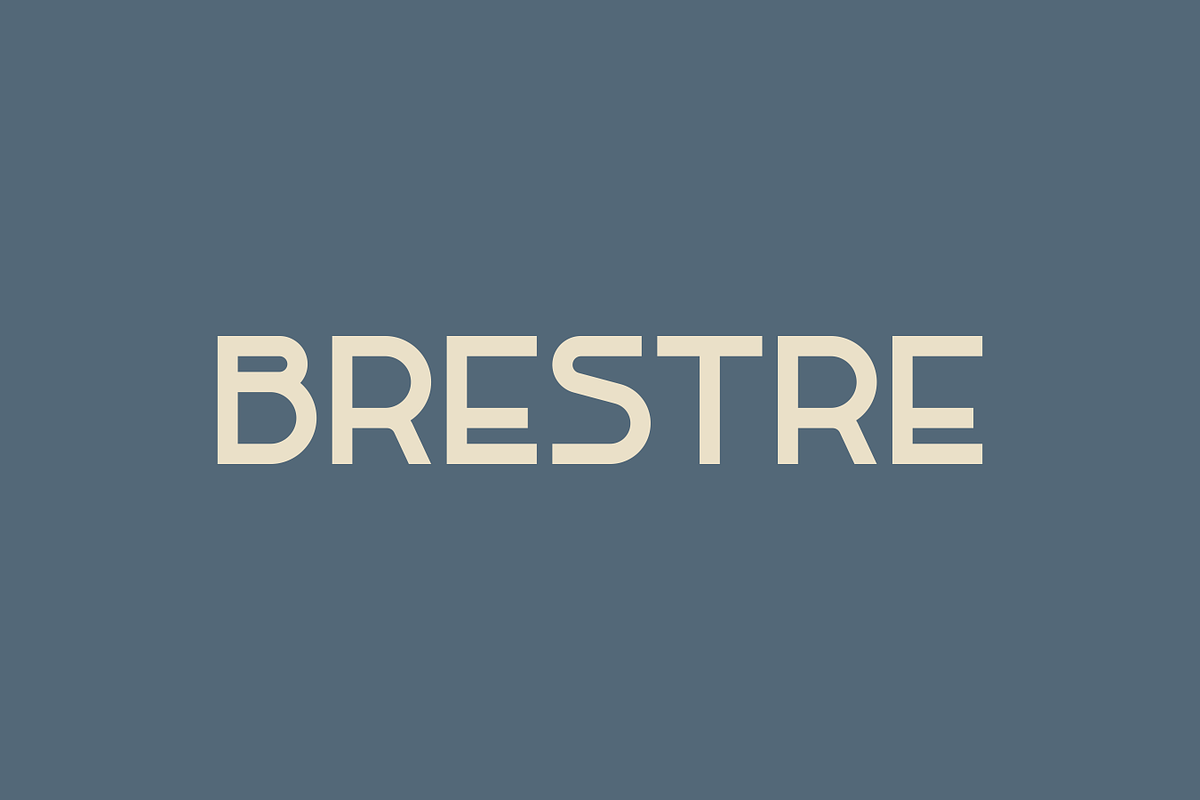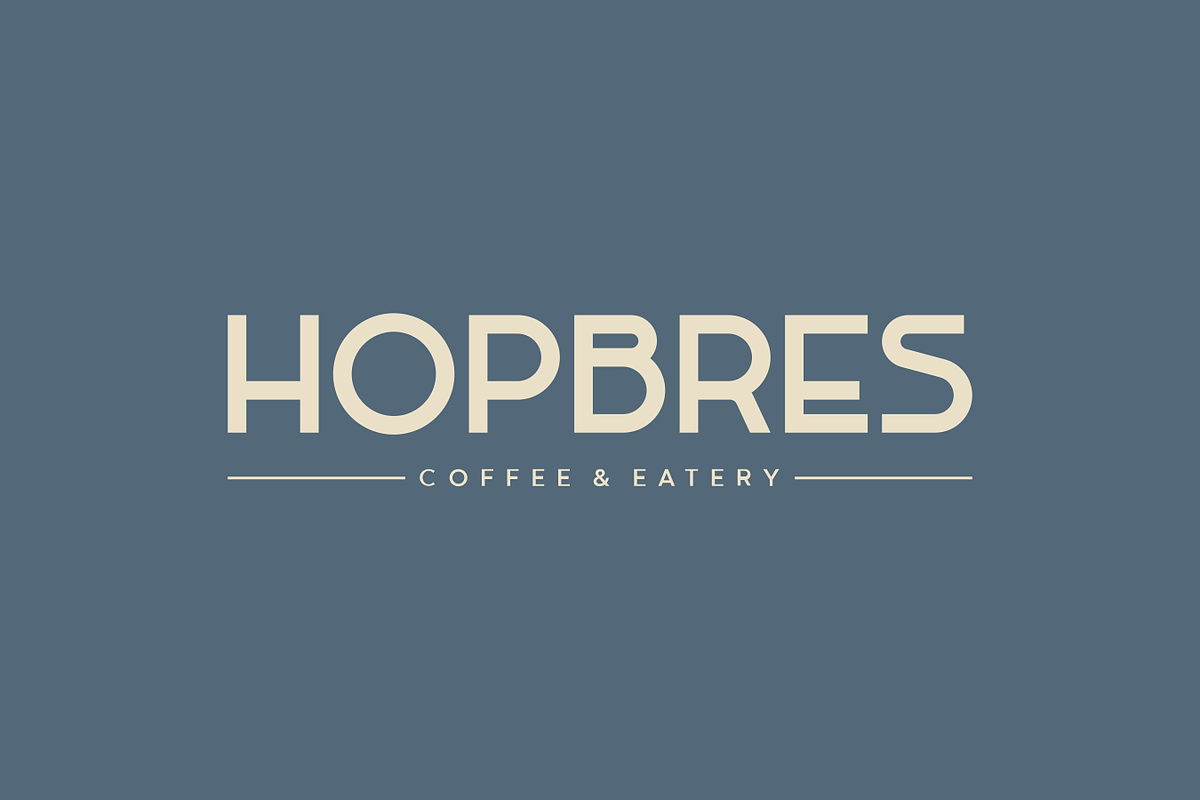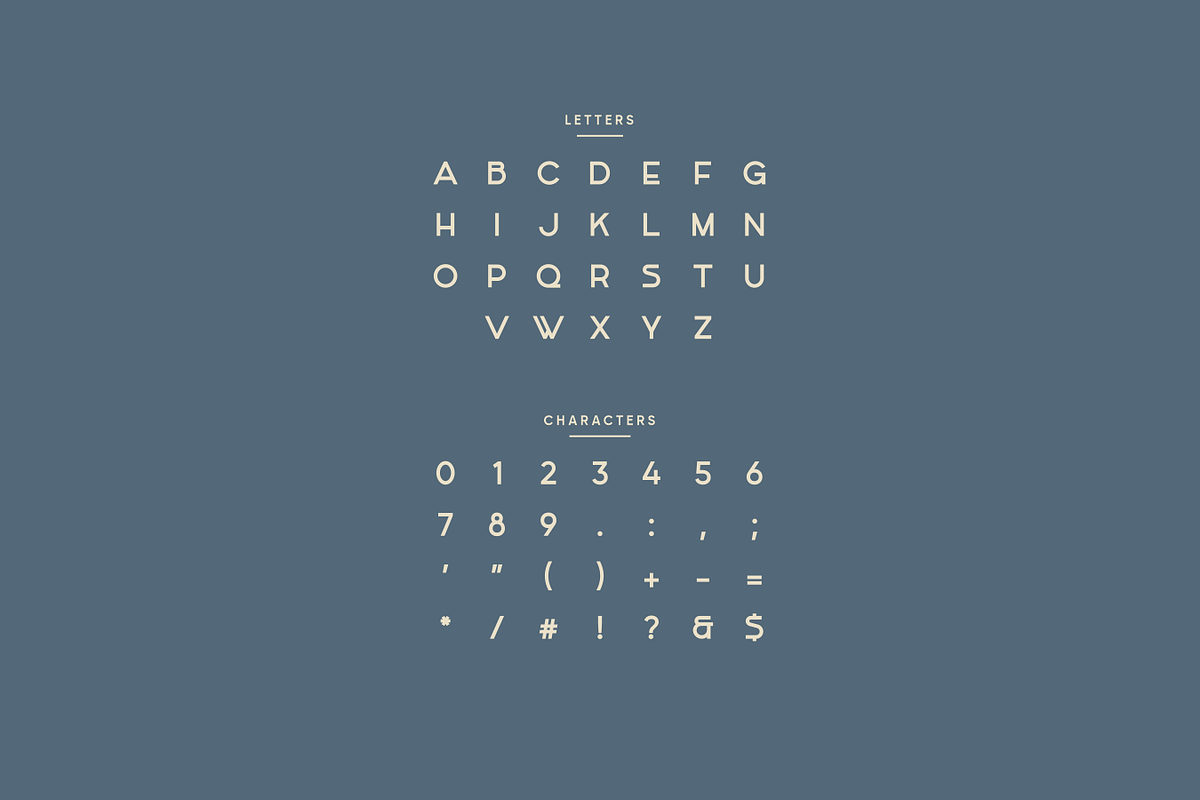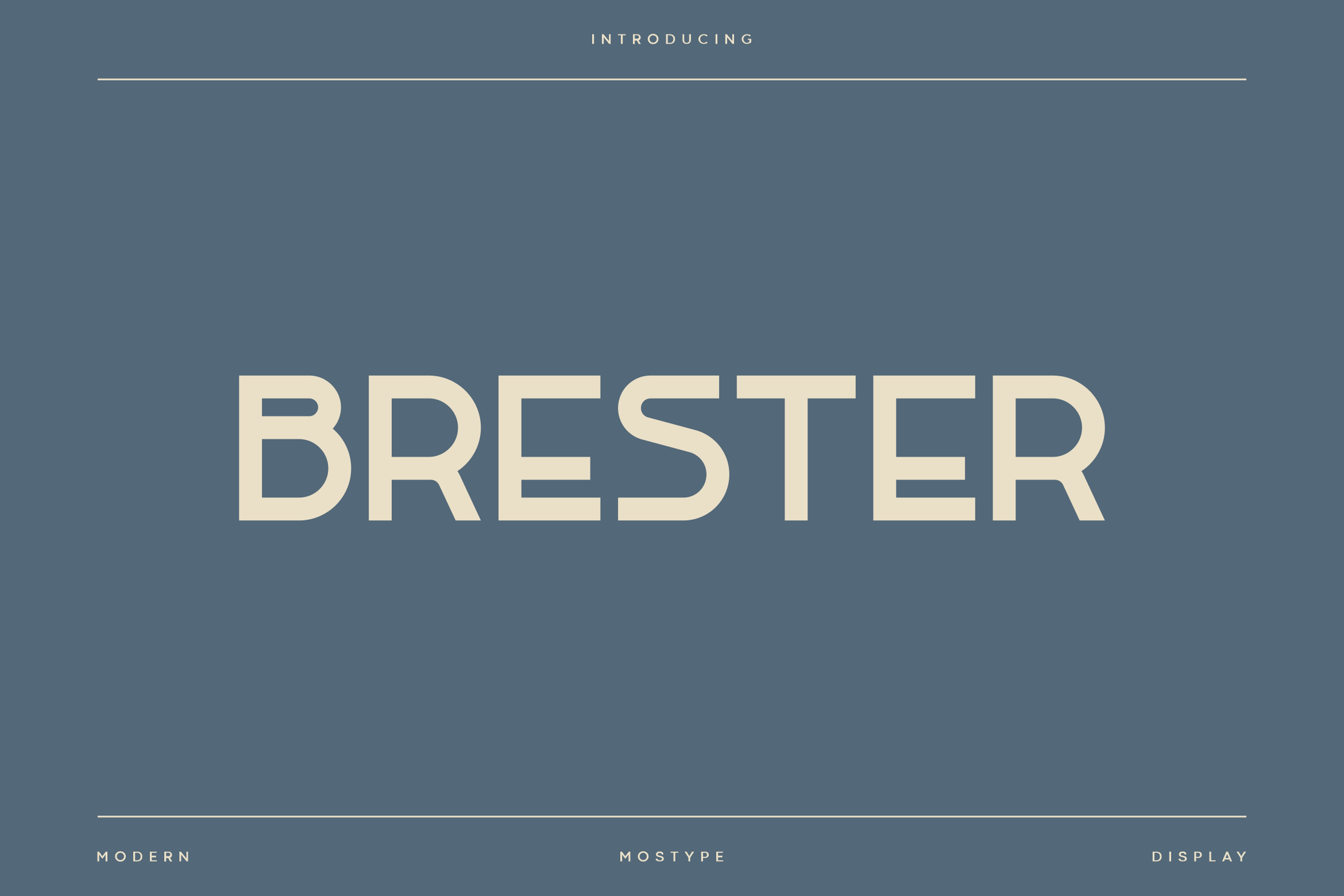
Brester - Modern Display Typeface
Brester is a sleek and adaptable typeface, created with a focus on simplicity and style. It’s the ideal choice for any design project that needs a polished and contemporary look. Brester provides excellent readability and a sophisticated appearance, adding a touch of elegance to your designs. This font is perfect for logo, title, magazine, posters, social media posts, branding, personal projects, etc.